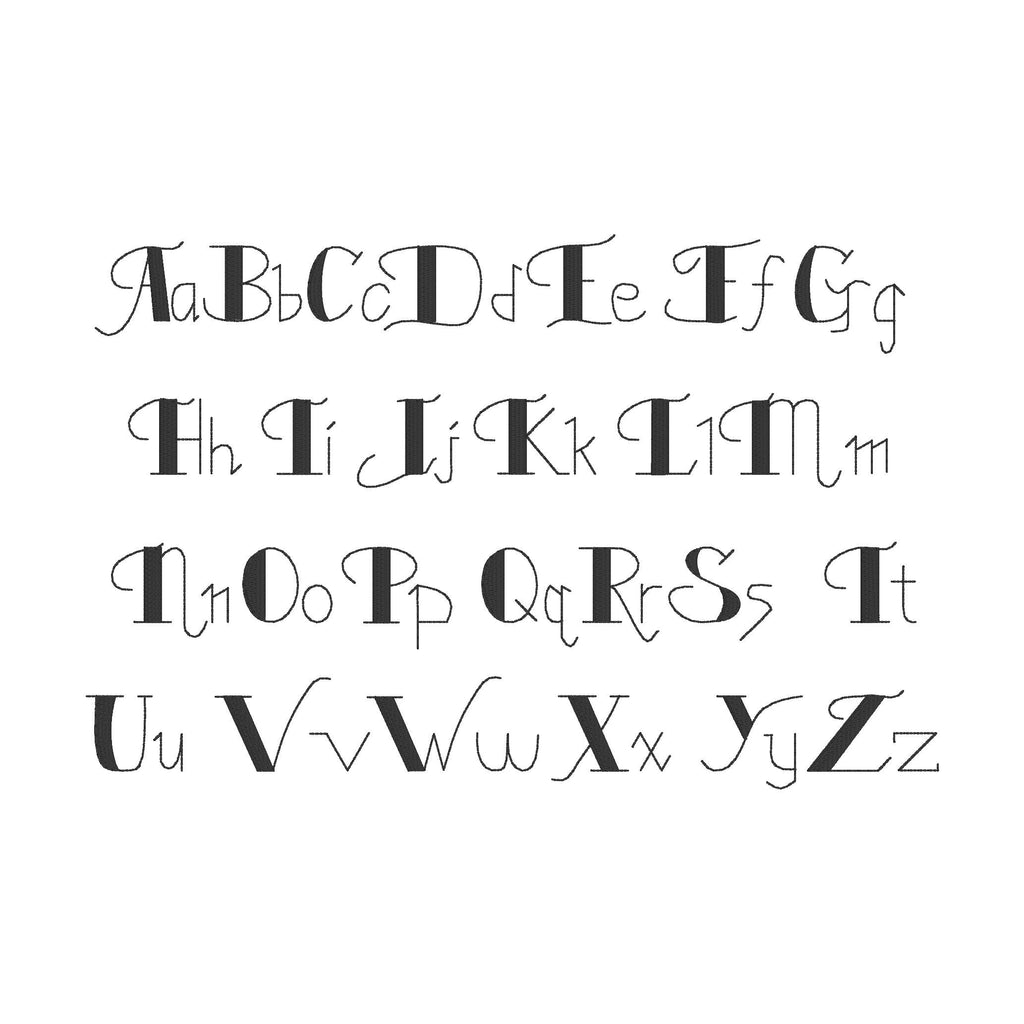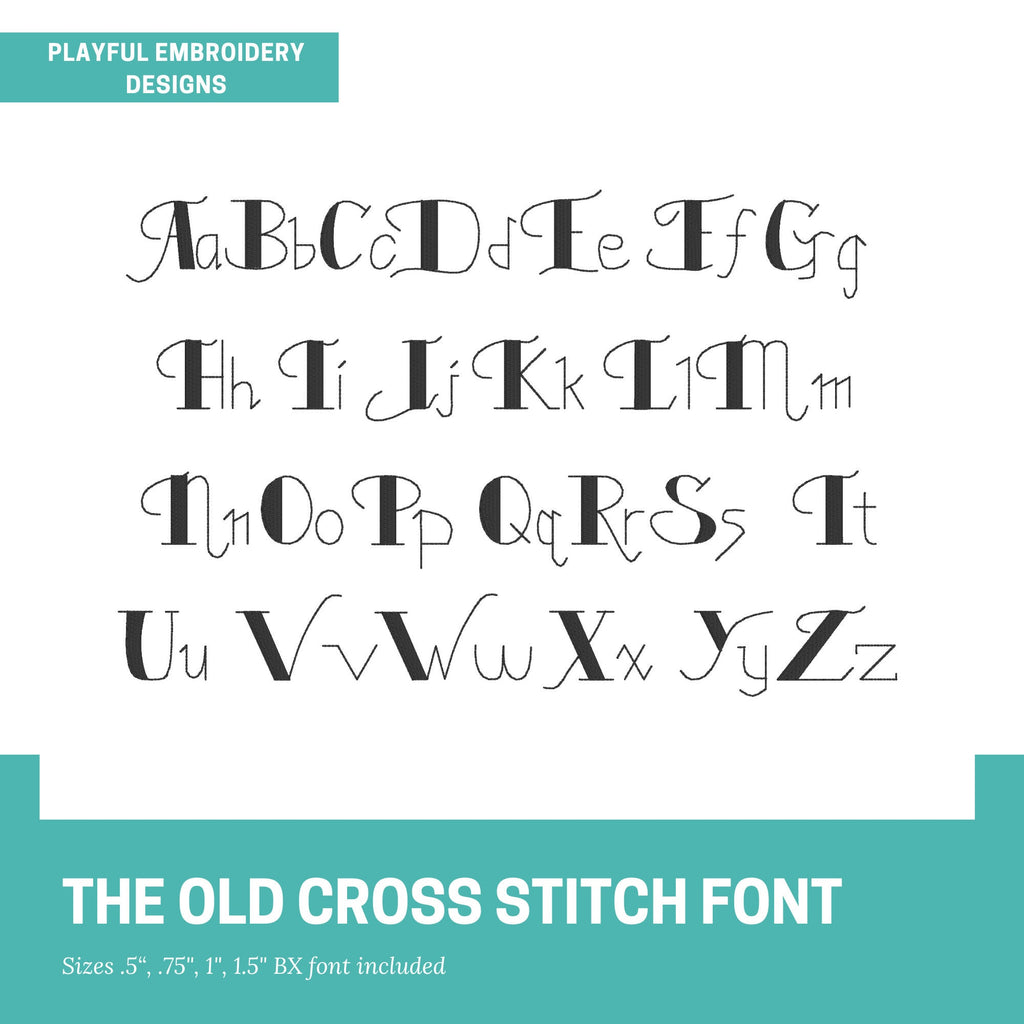
The Old Cross Stitch Embroidery Font, Old Fashioned Machine Embroidery Font, Playful Embroidery font, .5", .75", 1", 1.5" font size
Introducing the Old Cross Stitch machine embroidery font. Inspired by a piece of old cross stitch a customer sent to me. While this font is not really cross stitch, it has an old timey feel.